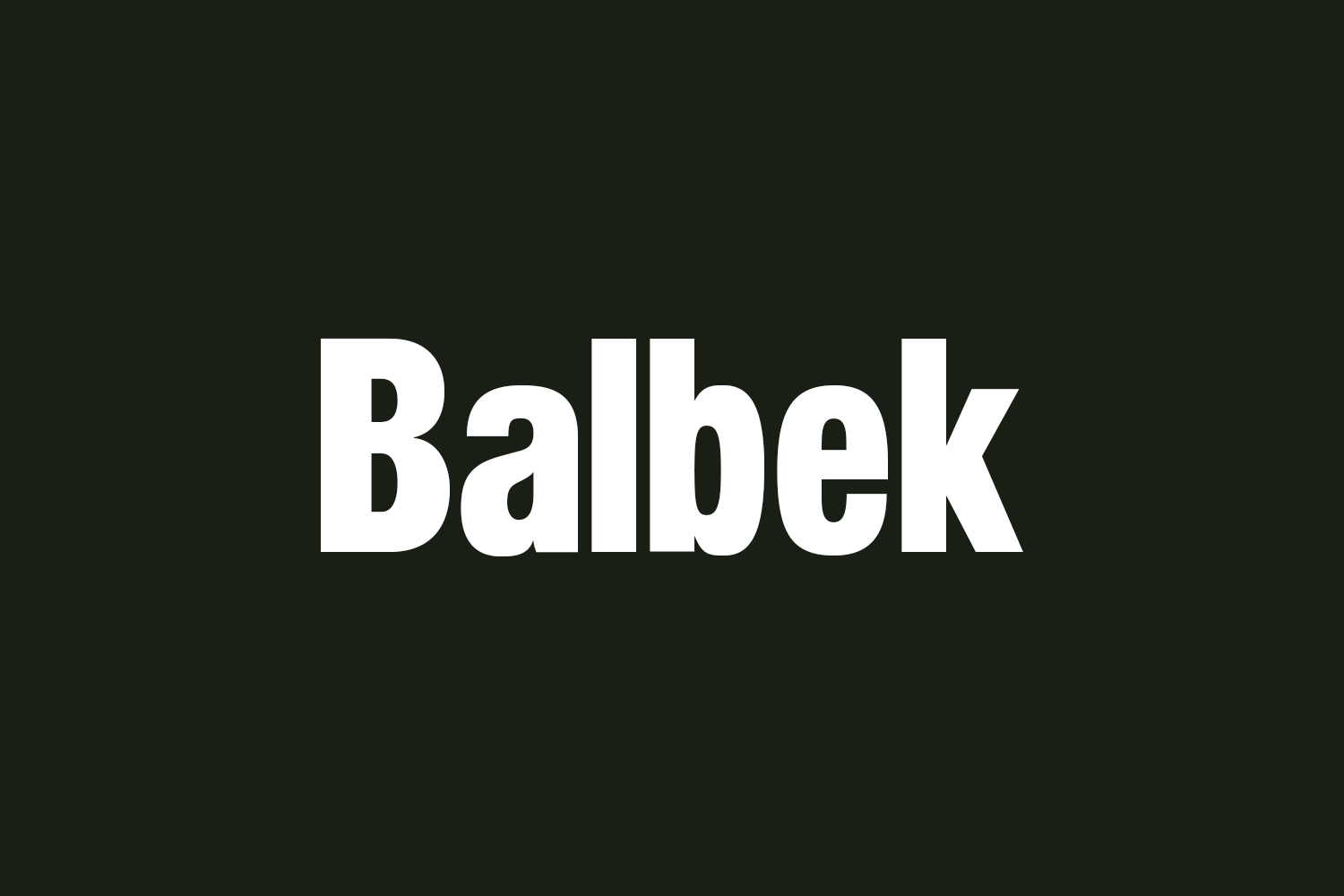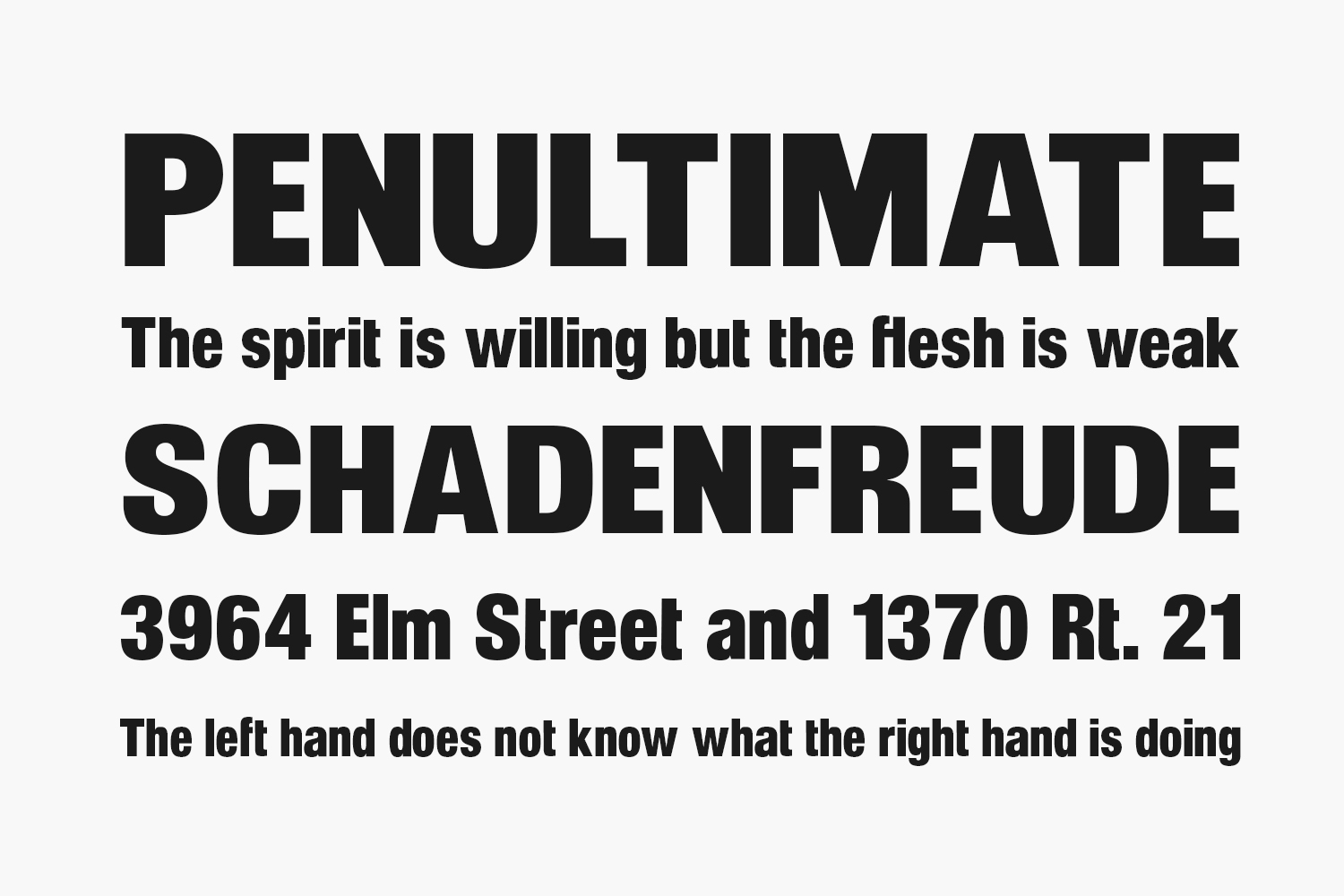
Balbek Free Font is an attention-grabbing, bold, and tightly spaced sans serif typeface that is perfect for use in headlines, advertisements, product packaging, newspapers, and posters. Its many features will elevate your next project and ensure it stands out.
Designed by Valentino Vergan